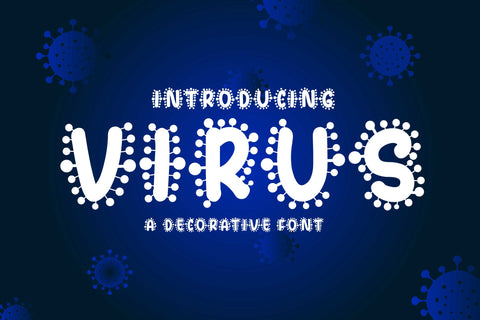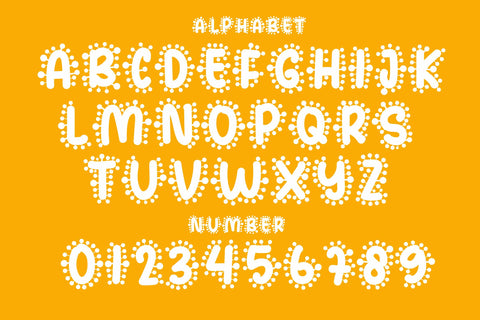
Virus - Unique Font
Virus is a very unique and strange decorative font. But it is this uniqueness that makes it different from the others. It’s perfect for any creative project that requires a friendly and fun look. Add this font to your favorite designs and get creative without limits.